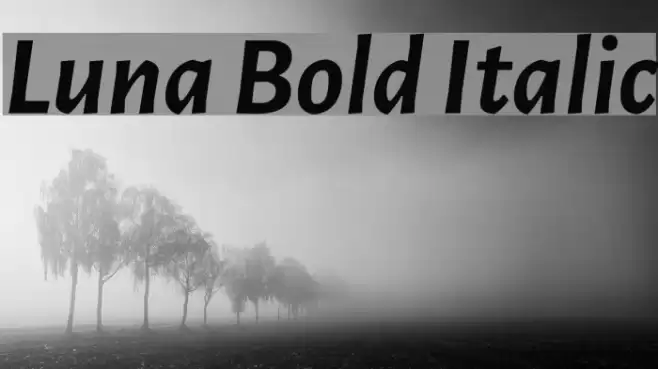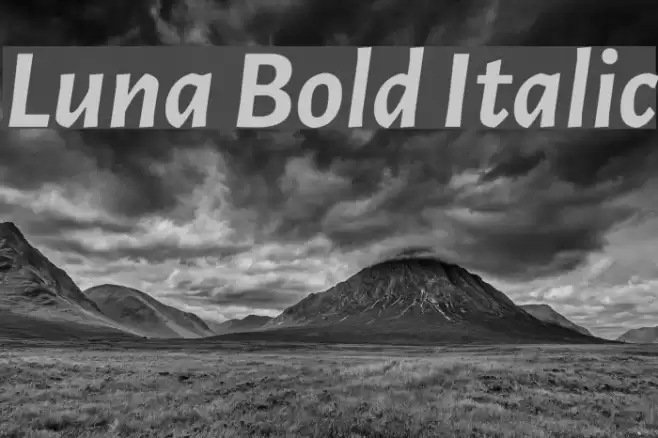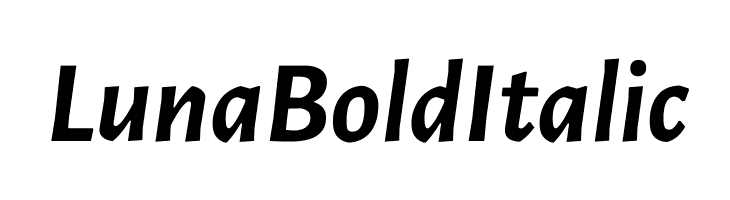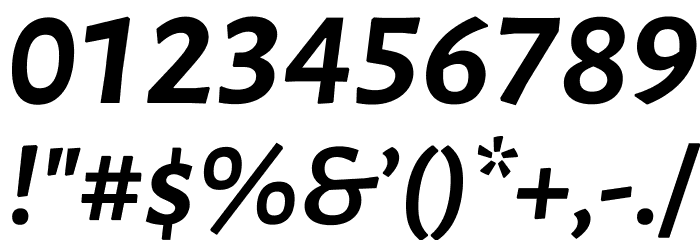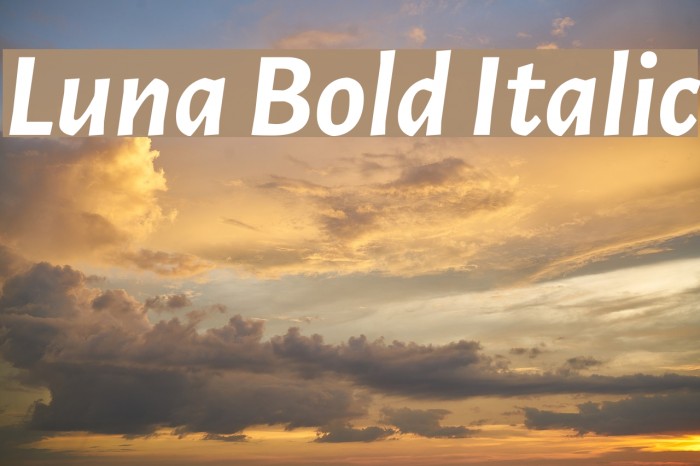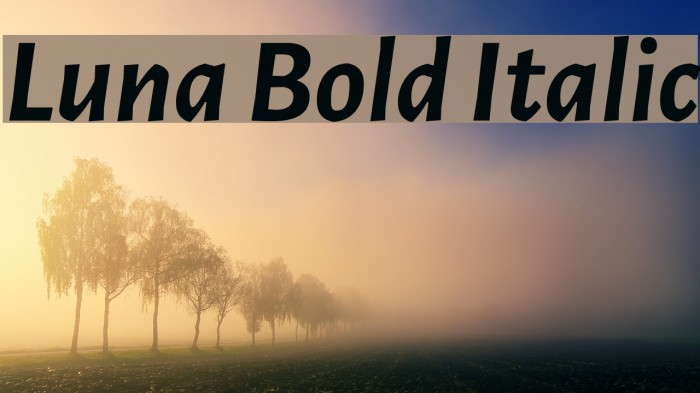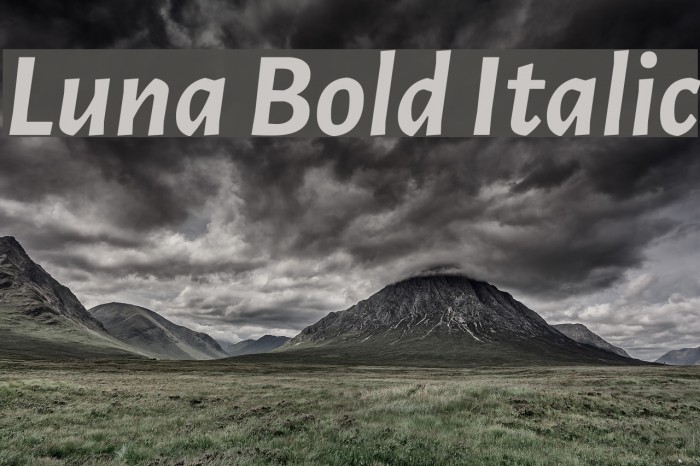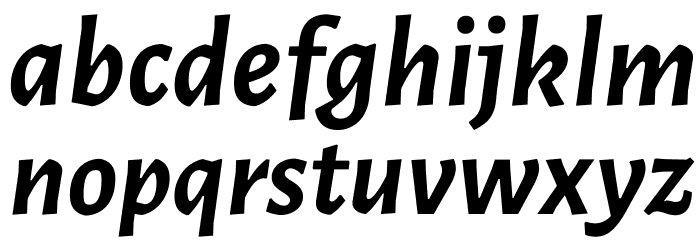
Luna Bold Italic Font
Luna Bold Italic Description
This font features a bold and italic style, characterized by its strong and dynamic appearance. The letters have a slight slant, adding a sense of motion and elegance. The strokes are thick and consistent, providing a robust and impactful look. The uppercase letters are prominent and commanding, while the lowercase letters maintain a harmonious flow. The numerals are clear and well-defined, ensuring readability. Special characters are included, enhancing the font's versatility. Overall, this font exudes confidence and is suitable for making bold statements.
A bold and italic font with strong, dynamic strokes and a slight slant from Uncategorized fonts.